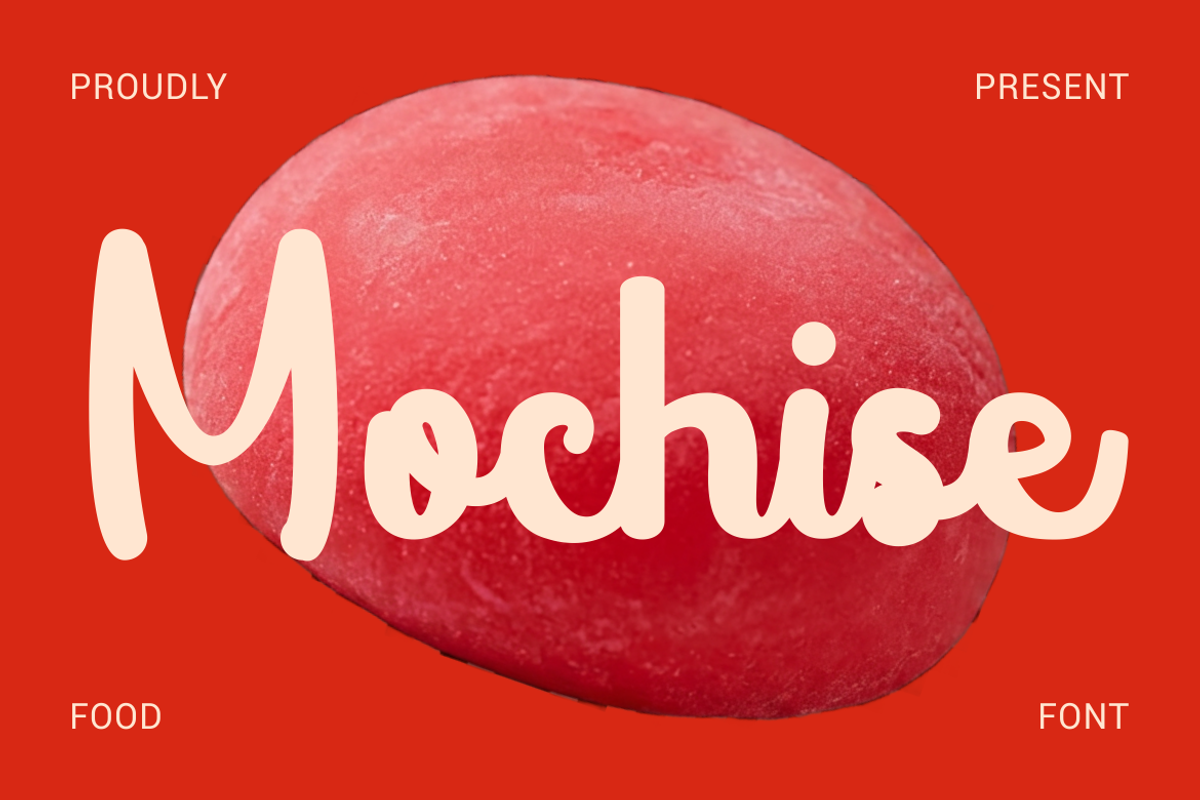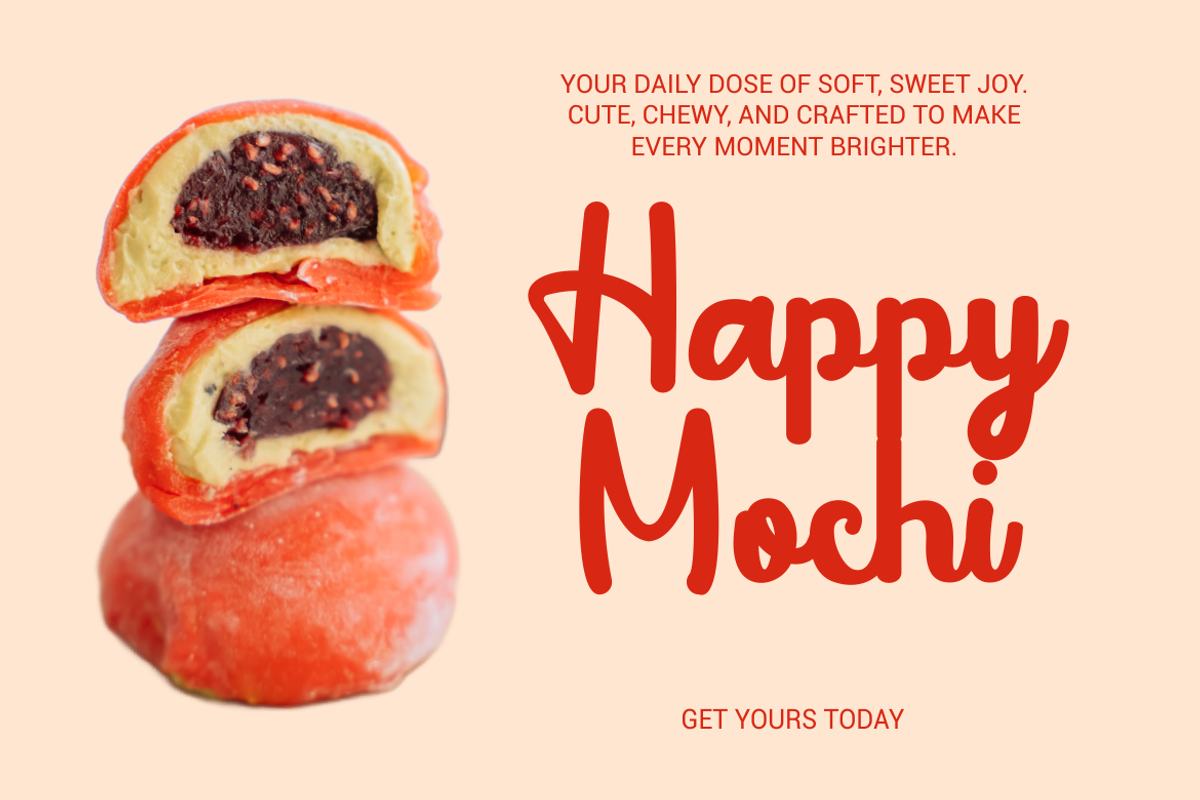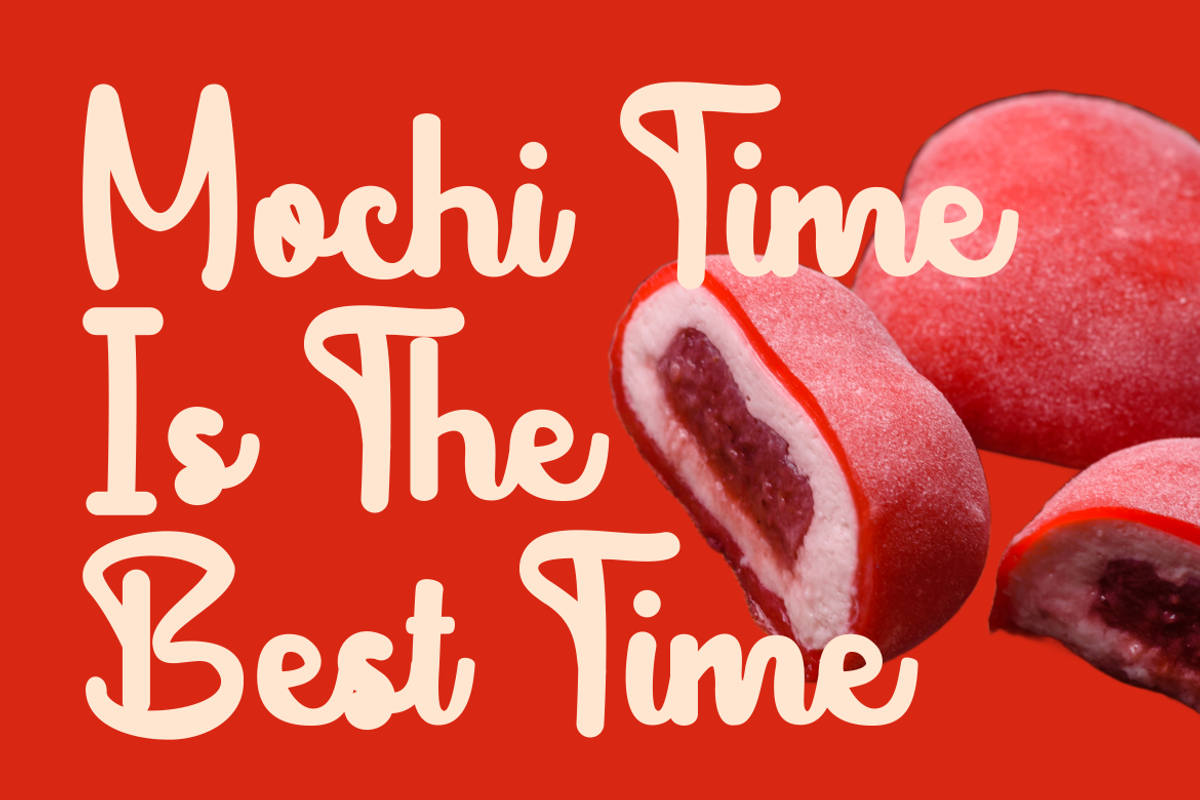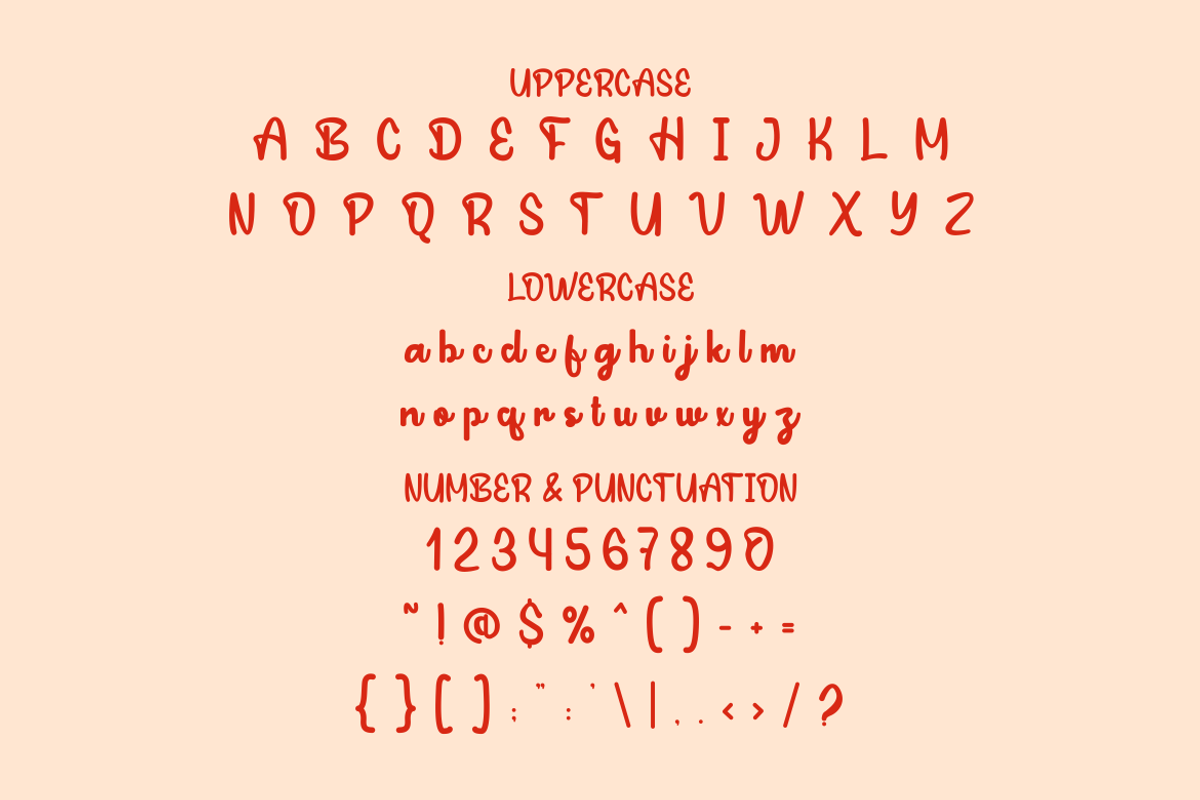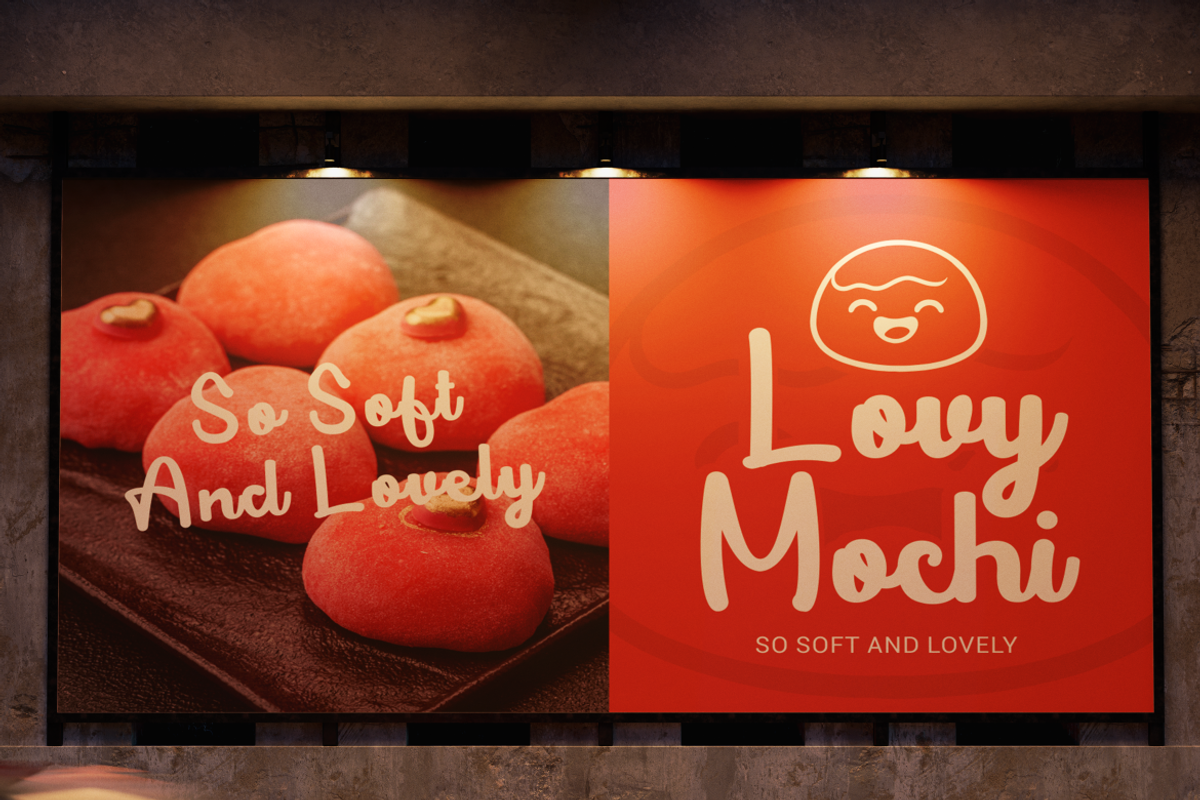
Mochise Food Font
Mochise Food Font is a playful script typeface inspired by soft and chewy desserts. The letterforms feature thick, rounded strokes with smooth flowing connections. Each curve feels elastic and friendly, creating a warm visual rhythm. The stroke weight stays consistent, giving the font a bold and stable presence. Ascenders rise gently, while descenders drop with balanced proportions. The generous x-height improves readability in large display settings. The overall style blends modern handwriting with a cute food branding tone. Mochise Food Font fits perfectly for mochi brands, dessert shops, bakery logos, and sweet snack packaging. It works well for product names, storefront signage, menu boards, and promotional headlines.
The script style feels casual, cheerful, and handcrafted without losing clarity. Its rounded terminals and soft edges echo the texture of sweet treats. The structure remains clean, making it effective for logo marks and brand identities. This font suits food advertisements, packaging titles, social media campaigns, and poster designs. It also performs well on stickers, greeting cards, invitation cards, book covers, and magazine titles. Designers can use it for café branding, dessert campaigns, and playful product launches. Mochise Food Font helps food businesses build a memorable and friendly brand voice. The character set includes uppercase, lowercase, numbers, and punctuation for complete creative flexibility.